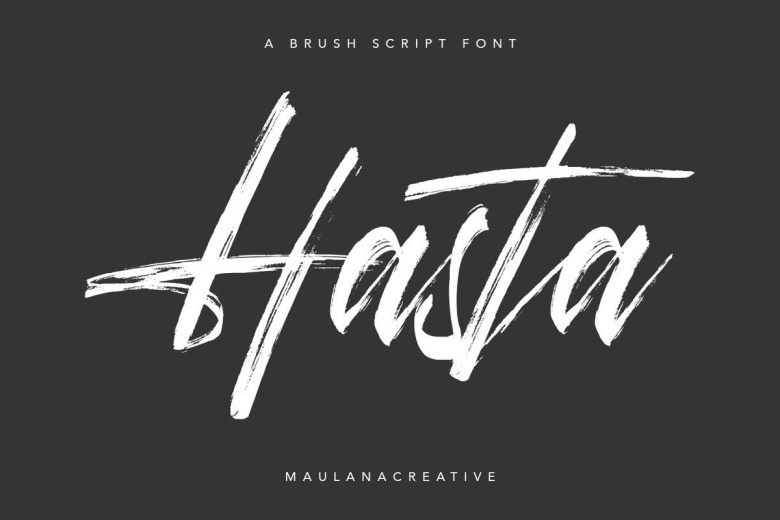
Hasta Font Free
Hasta Brush Script Font is a sweet and friendly handwritten dry brush font. Its natural and unique style makes it incredibly fitting to a large pool of designs. Made from font designer Maulana Creative. Made with manual techniques to produce a natural brush texture and is very suitable for use for magazines, branding identity, promotion, packaging, and others.